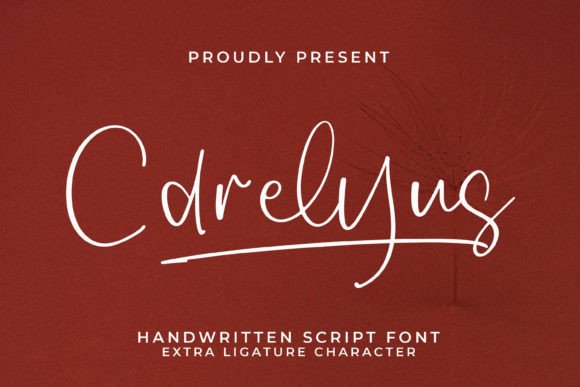
Behold the Carelyus Font family! An extravagant script font that will add a touch of elegance and sophistication to your creative projects. Impeccably crafted by integritypestudio, Carelyus promises to elevate your designs and leave the ordinary behind.
Carelyus will bring your dream trifold poster to life. Its charming and flowing strokes will guide readers through your words in a captivating journey. The poster will become a conversation piece, an enchanting artifact that draws attention and admiration wherever it's displayed. But it doesn't stop there. Carelyus effortlessly lends its beauty to logos, brand identities, product packaging, and an array of other creative projects.
Imagine Carelyus adorning your homewares designs, transforming everyday objects into works of art. Picture your quotes, posters, and shopping bags adorned with Carelyus's exquisite charm. Wear your creativity on your sleeve with t-shirts and covers books elegantly designed with Carelyus's graceful curves.
Carelyus is more than just a font, it's a luxury experience. Its high-quality appearance will enhance your business cards, invitation cards, and greeting cards, making them truly special and memorable. It's the perfect choice for labels, photography, watermarks, and special events that deserve an air of exclusivity.
Unleash your imagination and immerse yourself in a world of boundless creativity with Carelyus. Elevate your designs to new heights, captivate your audience with unforgettable visuals, and leave a lasting impression. Let Carelyus be your creative partner and together, you will create masterpieces that define luxury and elegance.